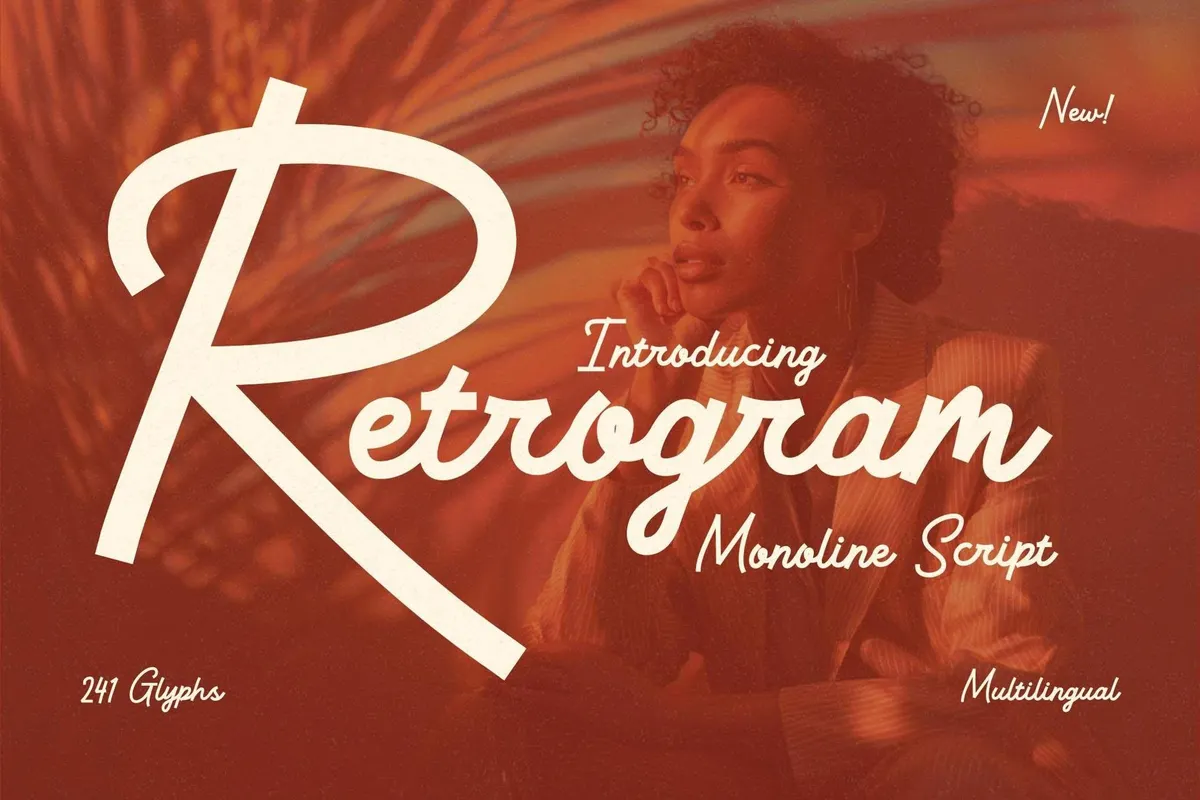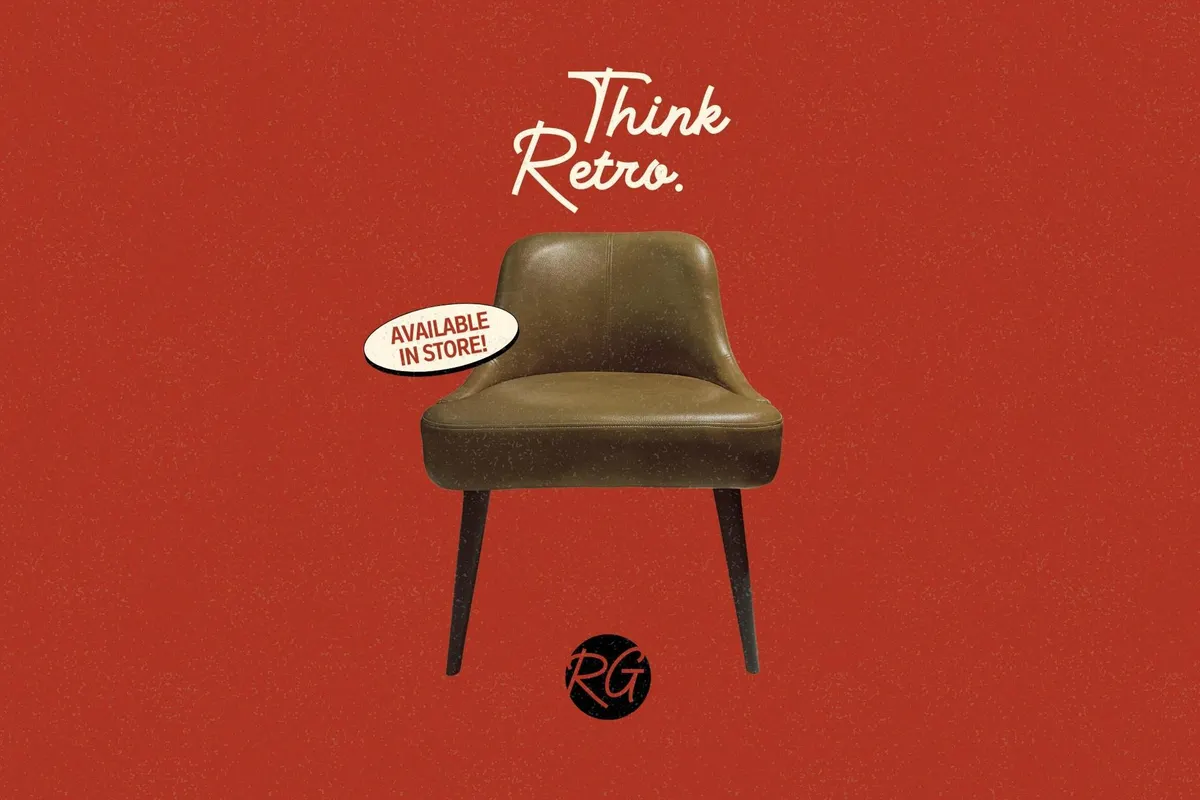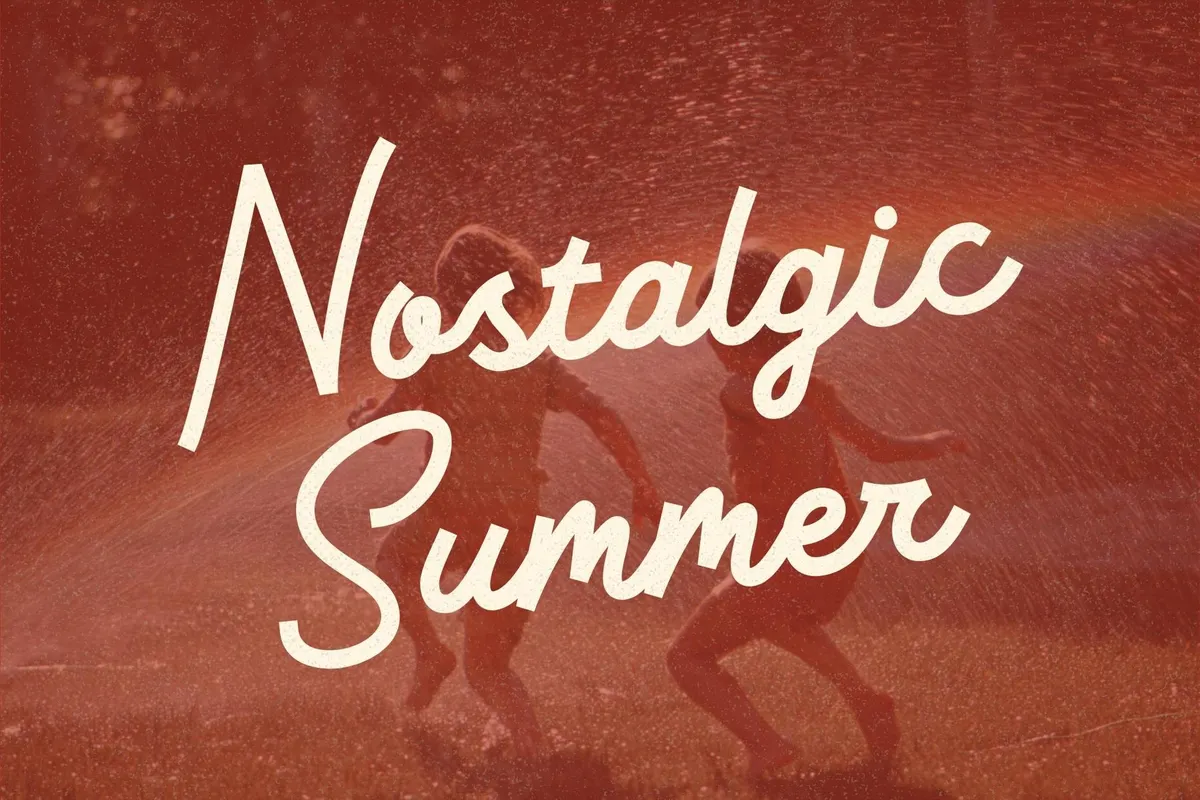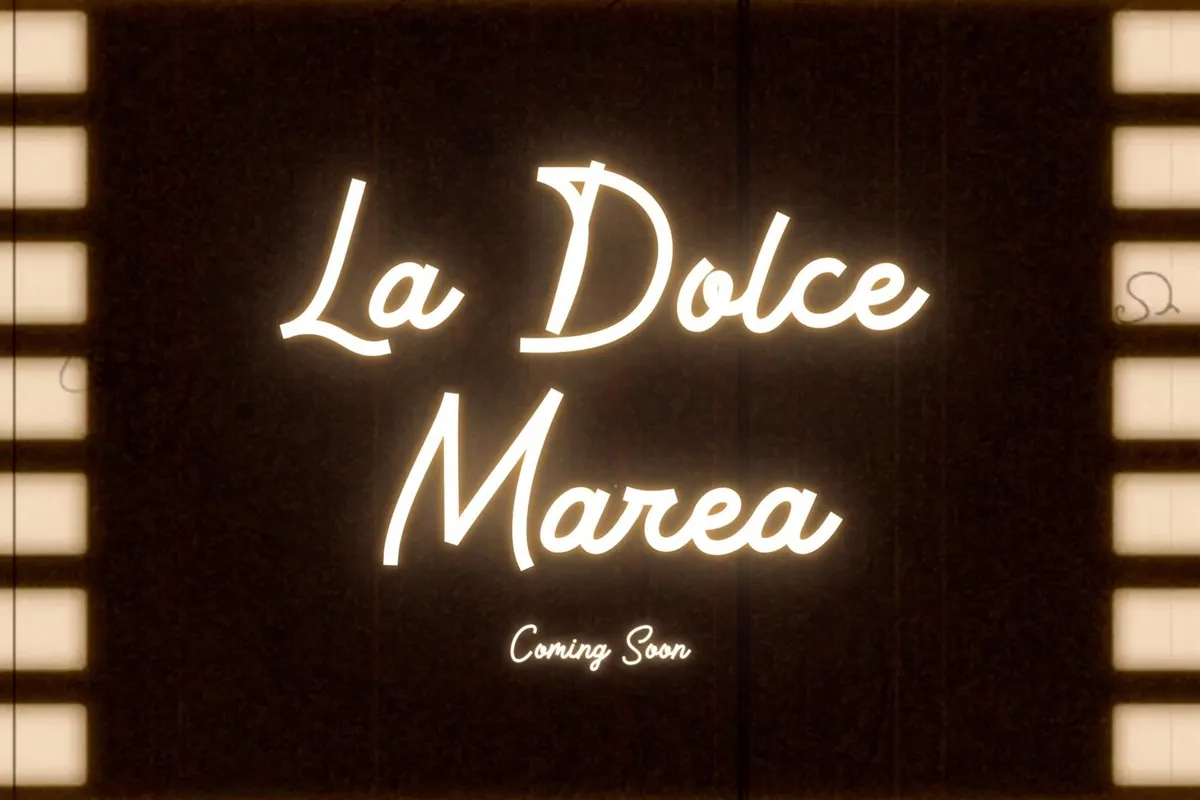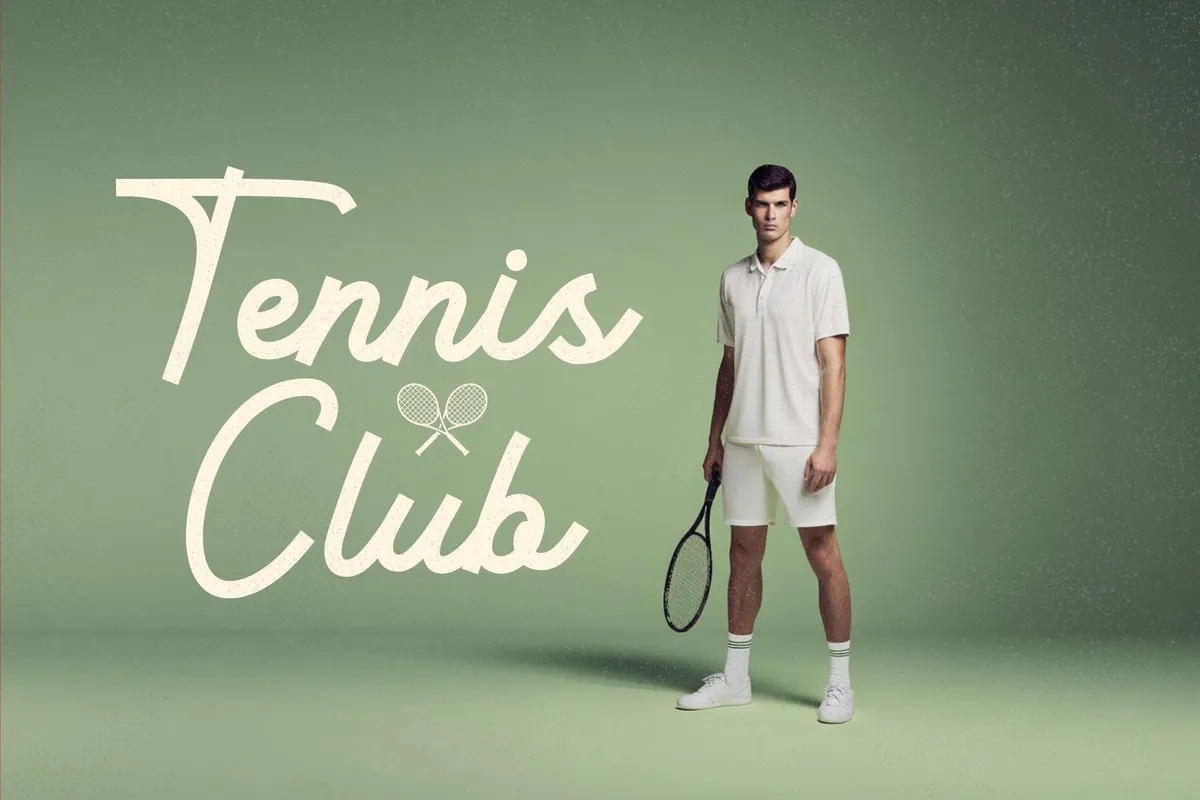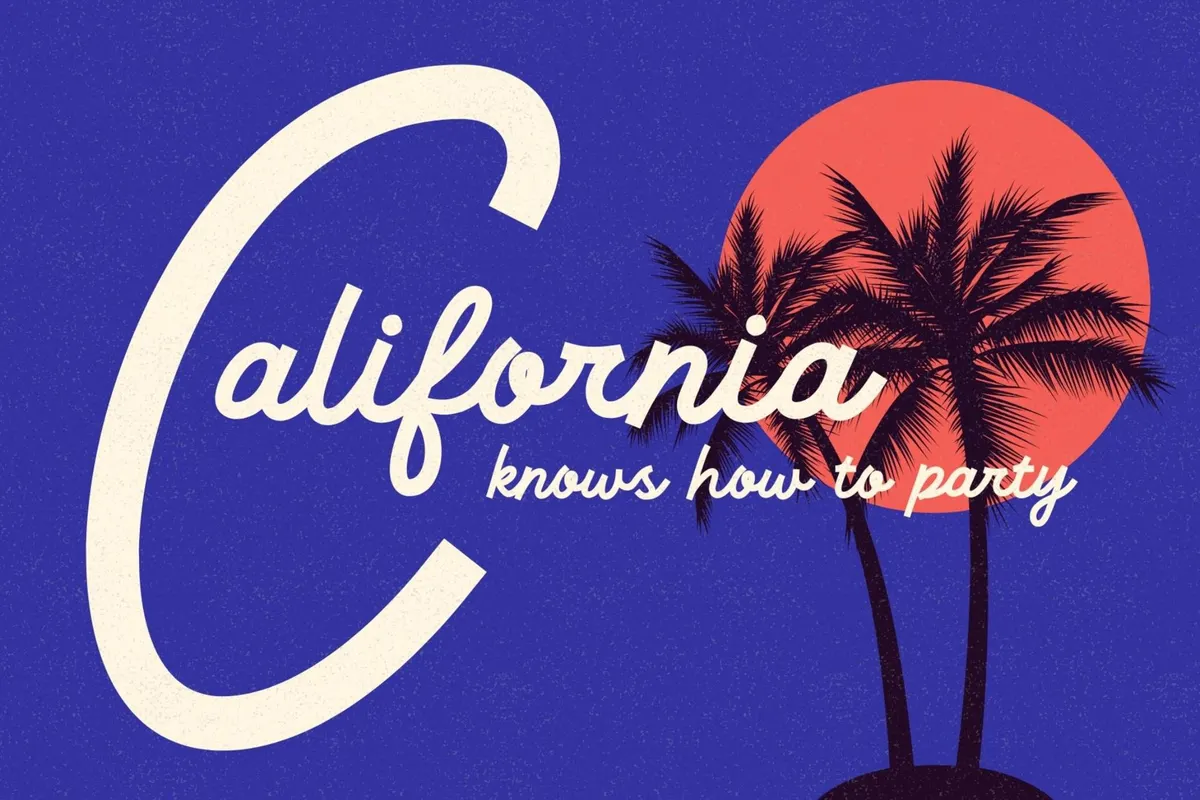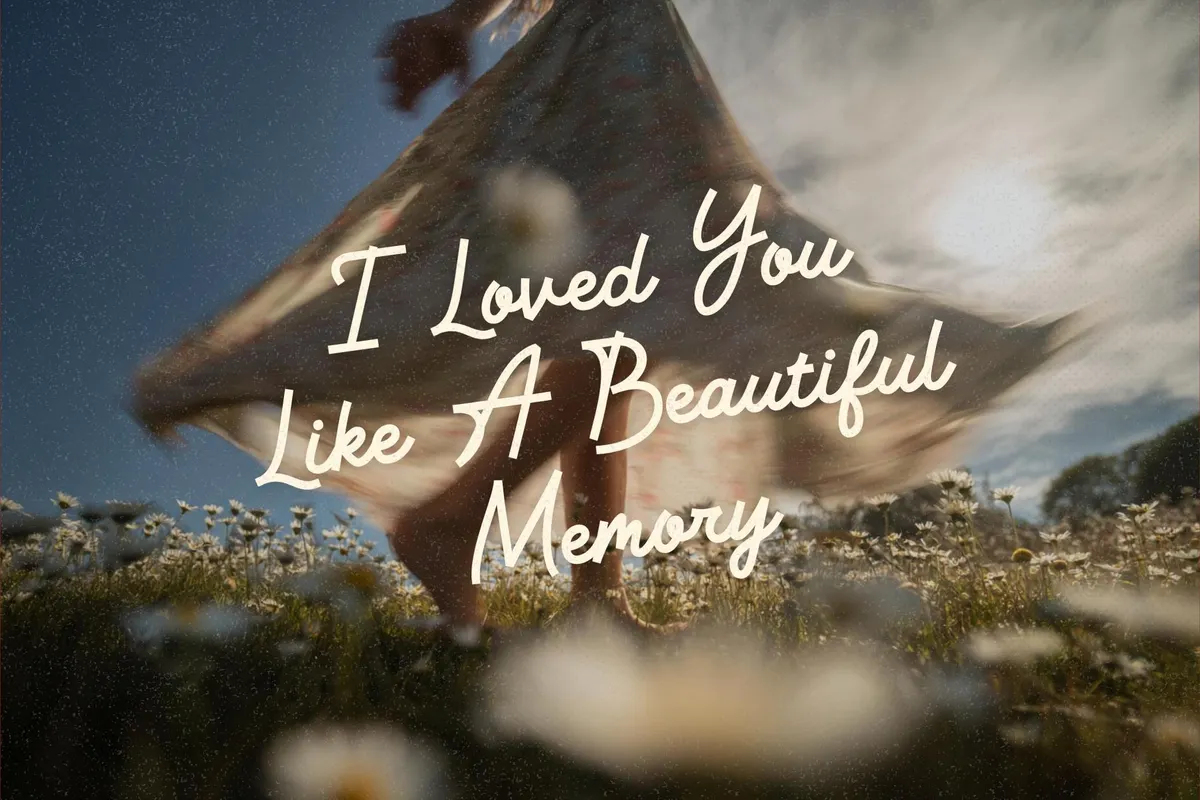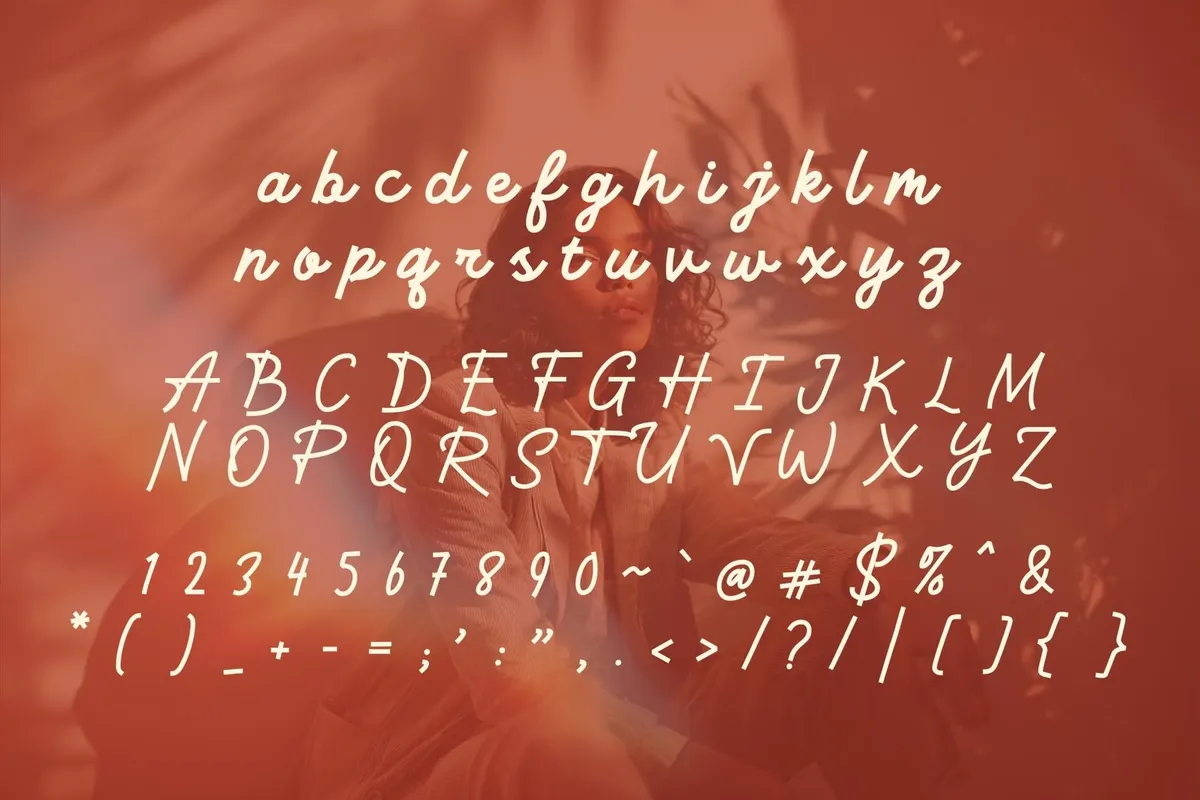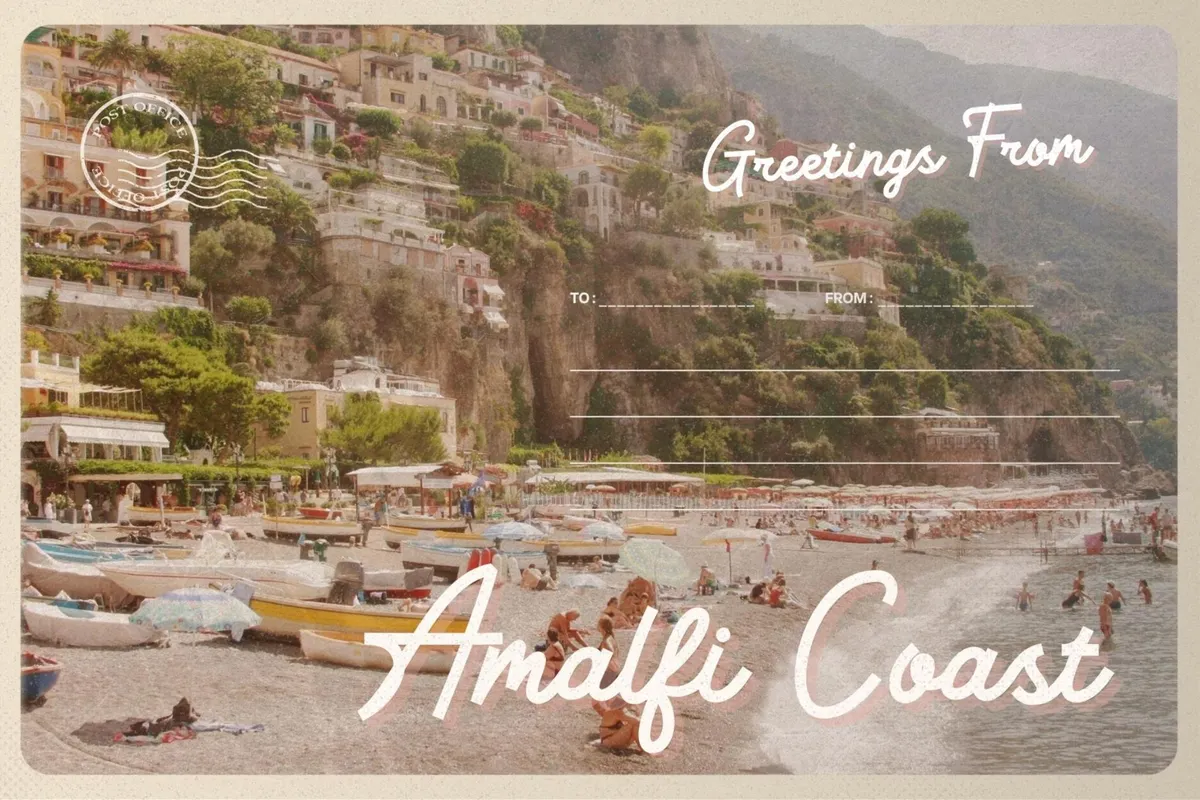
Retrogram - Vintage Monoline Script
Step into the golden glow of nostalgia with Retrogram, a stunning monoline script font that oozes charm, character, and charisma. Inspired by the carefree elegance of mid-century signage, classic soda labels, and retro Americana, Retrogram is more than just a typeface, it’s a time machine for your creativity.
Crafted with meticulous detail, each curve and stroke of Retrogram dances with fluidity, bringing an effortless rhythm to your designs. Whether you're creating a bold movie title, an iconic brand logo, a stylish poster, or an eye-catching headline, Retrogram demands attention without screaming for it and glows with confidence.